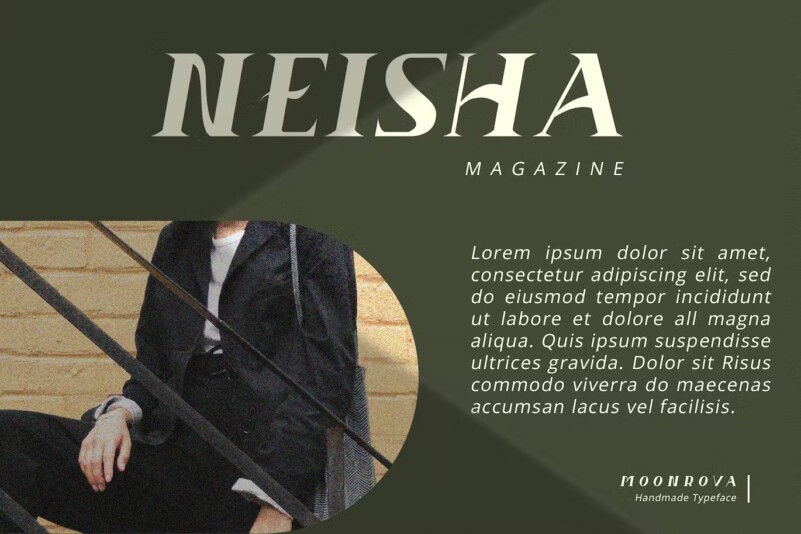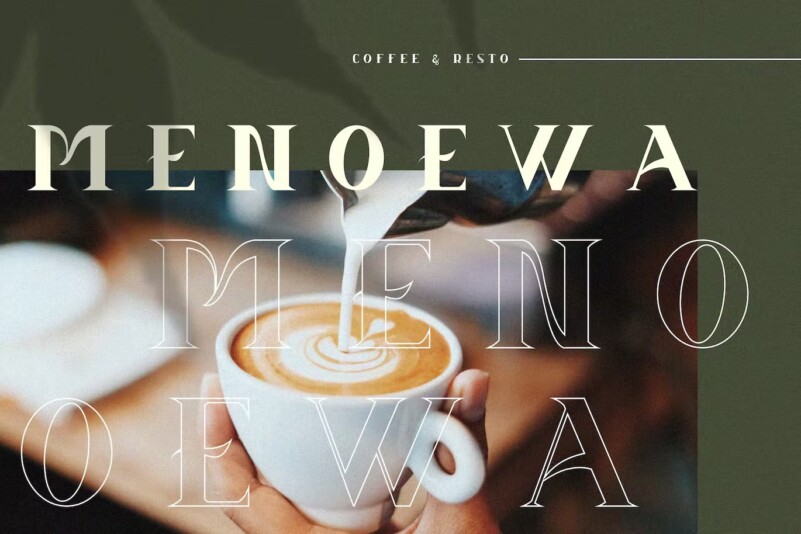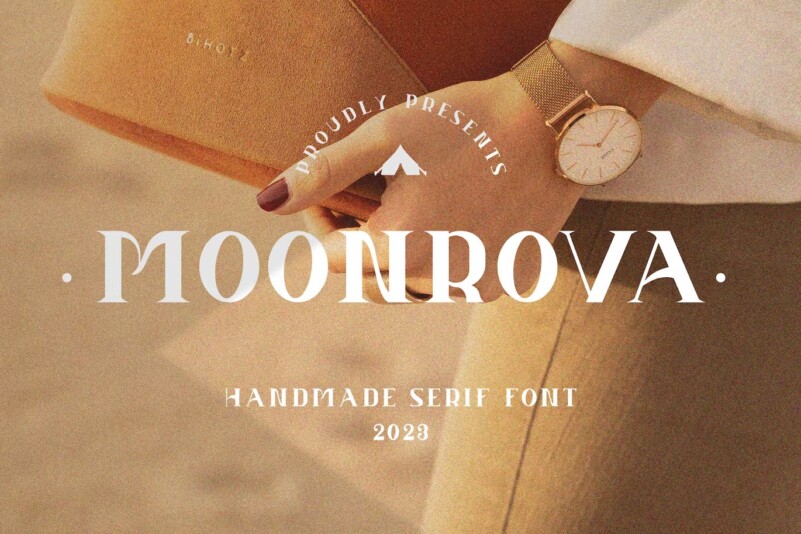
Moonrova Font
Moonrova Serif is a handmade serif font. He has a wonderful character. It fits perfectly with invitation card designs, company logos, movie titles, film names, business cards, book titles, brand names and various other designs.